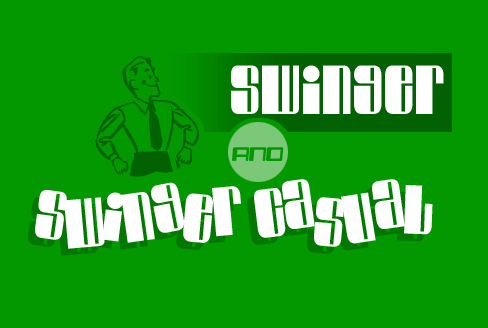
Swinger Casual
I was really struggling to come up with a cool name for this font. It looked pretty hip, but not too wild. It was crisp, clean, and a teensy bit futuristic. I started brainstorming and started spacing out. I was thinking about the new Austin Powers movie coming out and Dr. Evil falling down the stairs. I named the font Swinger and added a slightly tipsy version for the lounge lizard scene, Swinger Casual.